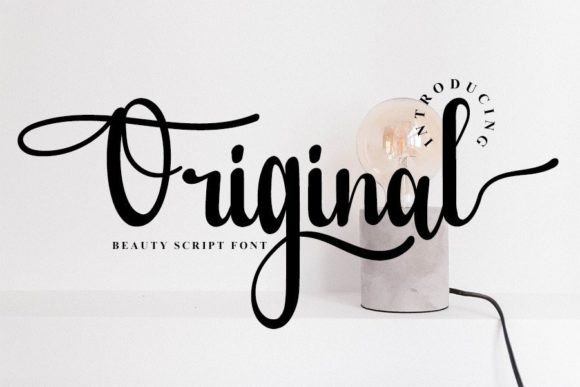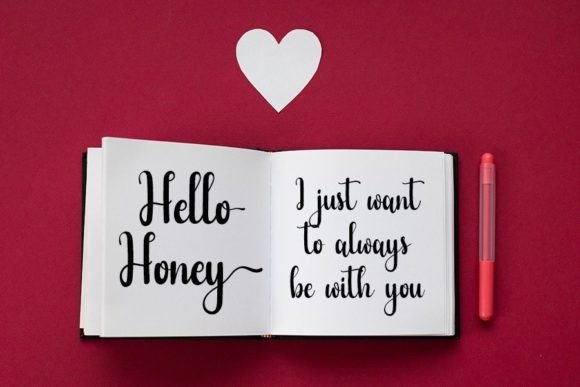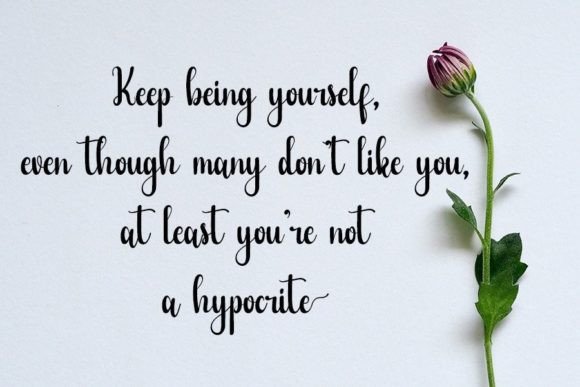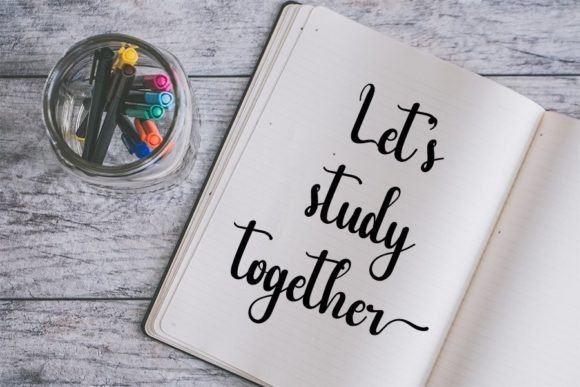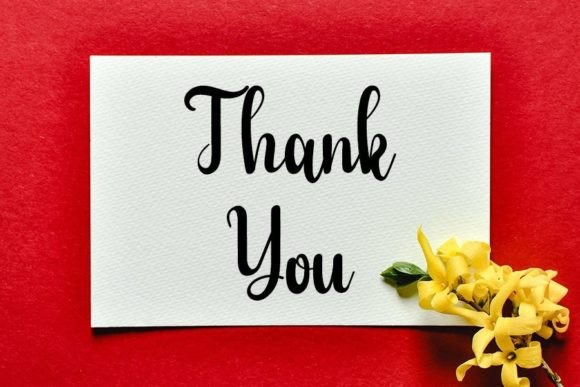
Original Font
About Original Font
Introducing Original, a friendly handwritten font thoughtfully crafted to become your true favorite. This font seamlessly marries classic calligraphic influences with a contemporary and fresh feel, making it a versatile and timeless choice for a variety of design applications.
Original stands out as more than just a font; it’s a design companion that effortlessly combines friendliness with a touch of sophistication. Its carefully curated design ensures a balance between classically inspired calligraphy and a modern, vibrant aesthetic. Picture the impact of Original on your projects — maintaining an air of elegance while infusing them with a welcoming and approachable demeanor.
This font is a testament to the art of handwritten expression, offering a warm and personal touch to your designs. Whether you’re working on invitations, branding, social media graphics, or any other creative endeavor, Original adapts seamlessly to your vision, adding a layer of authenticity and contemporary charm.
Original doesn’t just follow trends; it sets its own standard of timelessness. Its versatility makes it a go-to choice for those seeking a font that remains relevant across various design contexts. Let Original be the anchor that ties your creative concepts together, providing a consistent and captivating visual element.
In essence, Original is not just a font choice; it’s a carefully curated piece of design that holds the promise of becoming your true favorite. Embrace its friendly yet classy nature, and let it elevate your projects to new heights of contemporary elegance and timeless appeal.